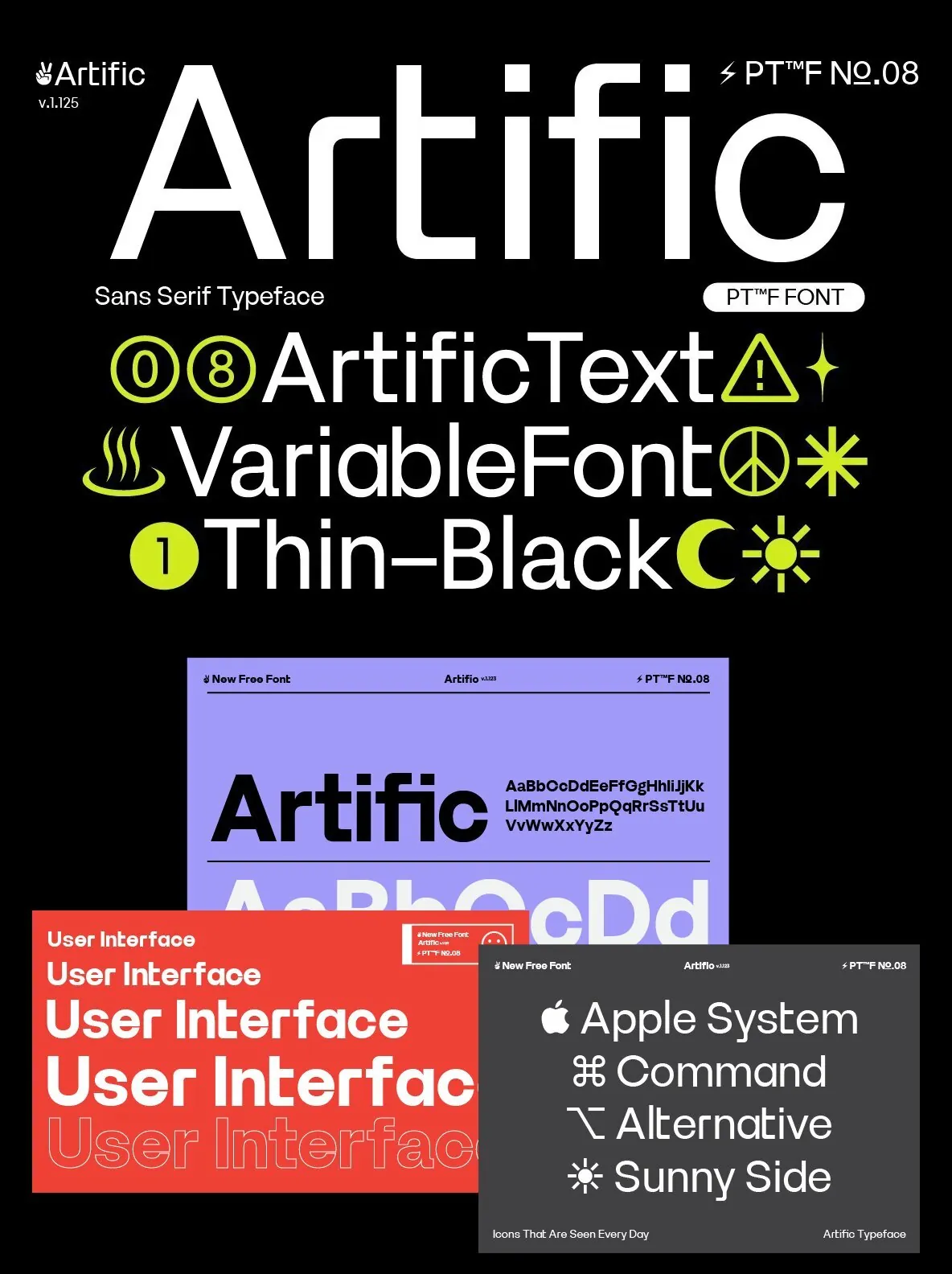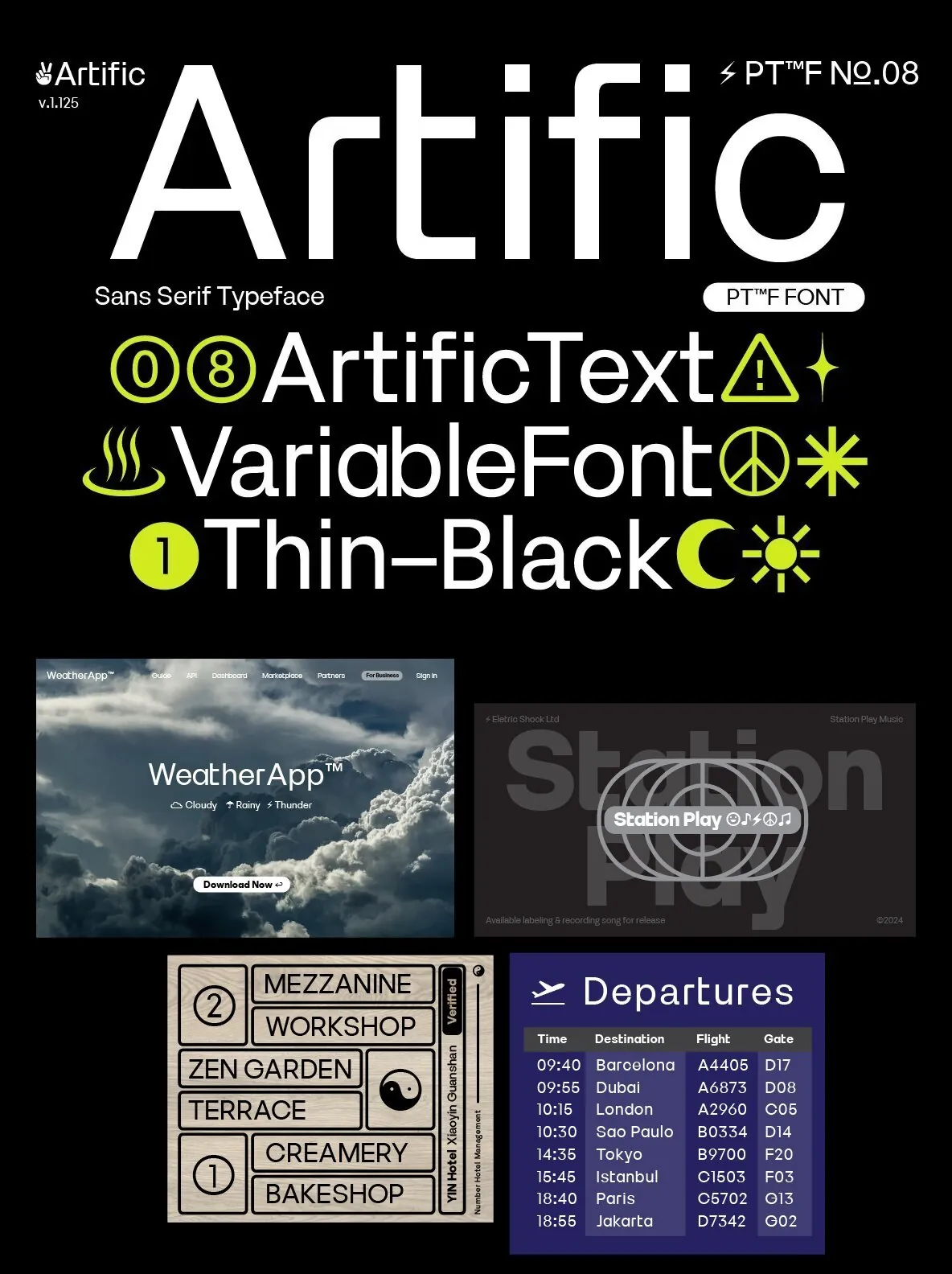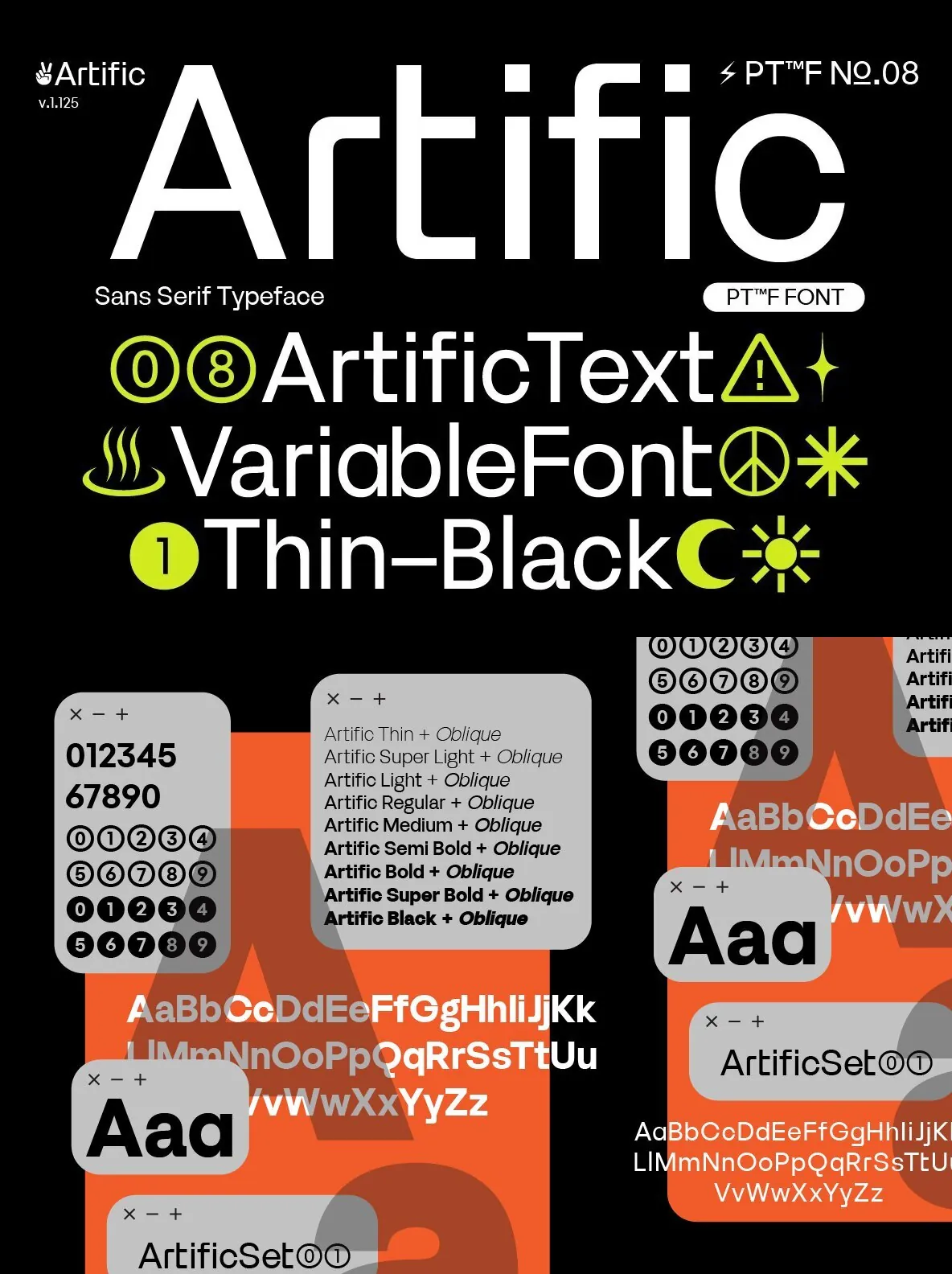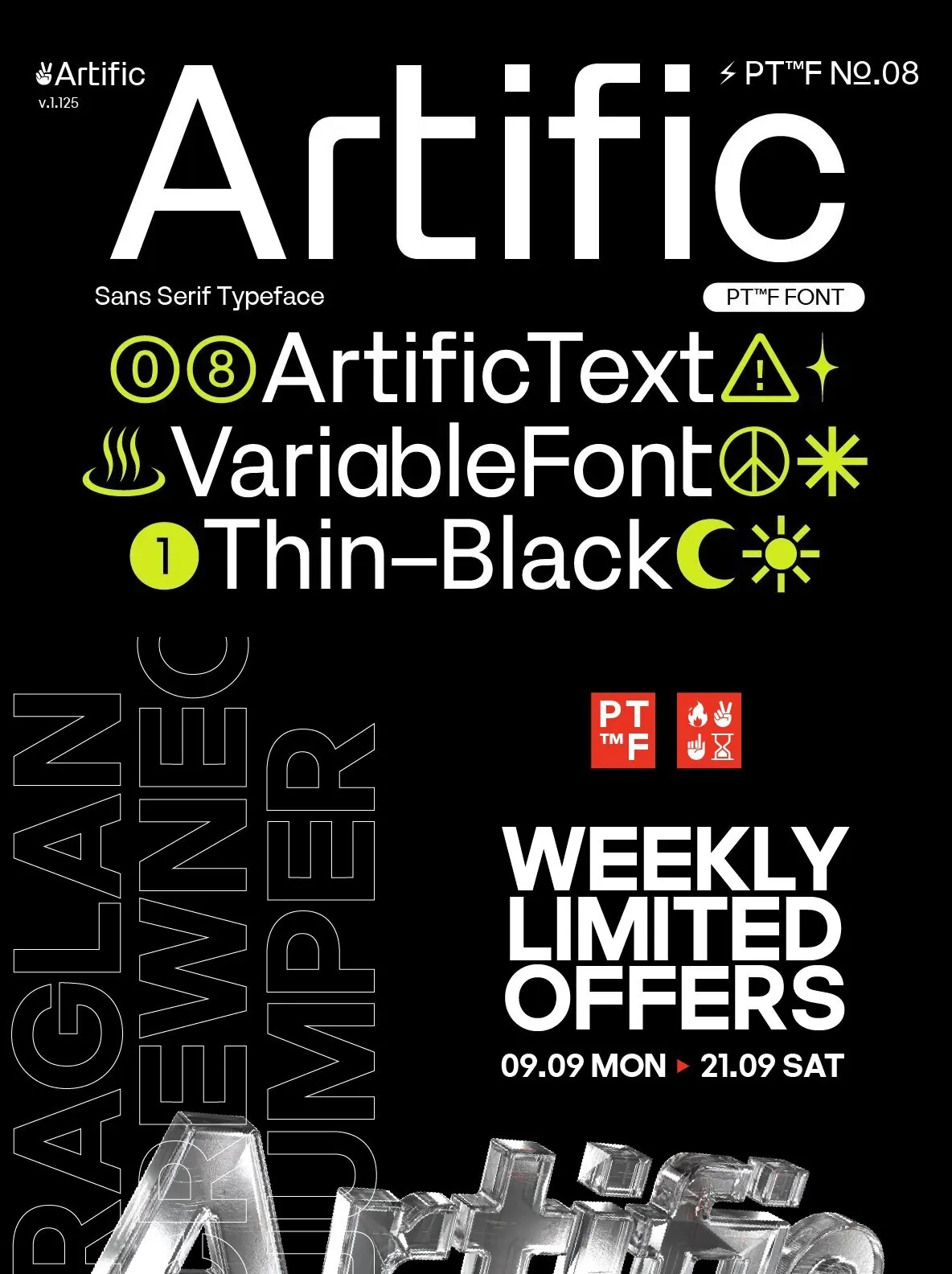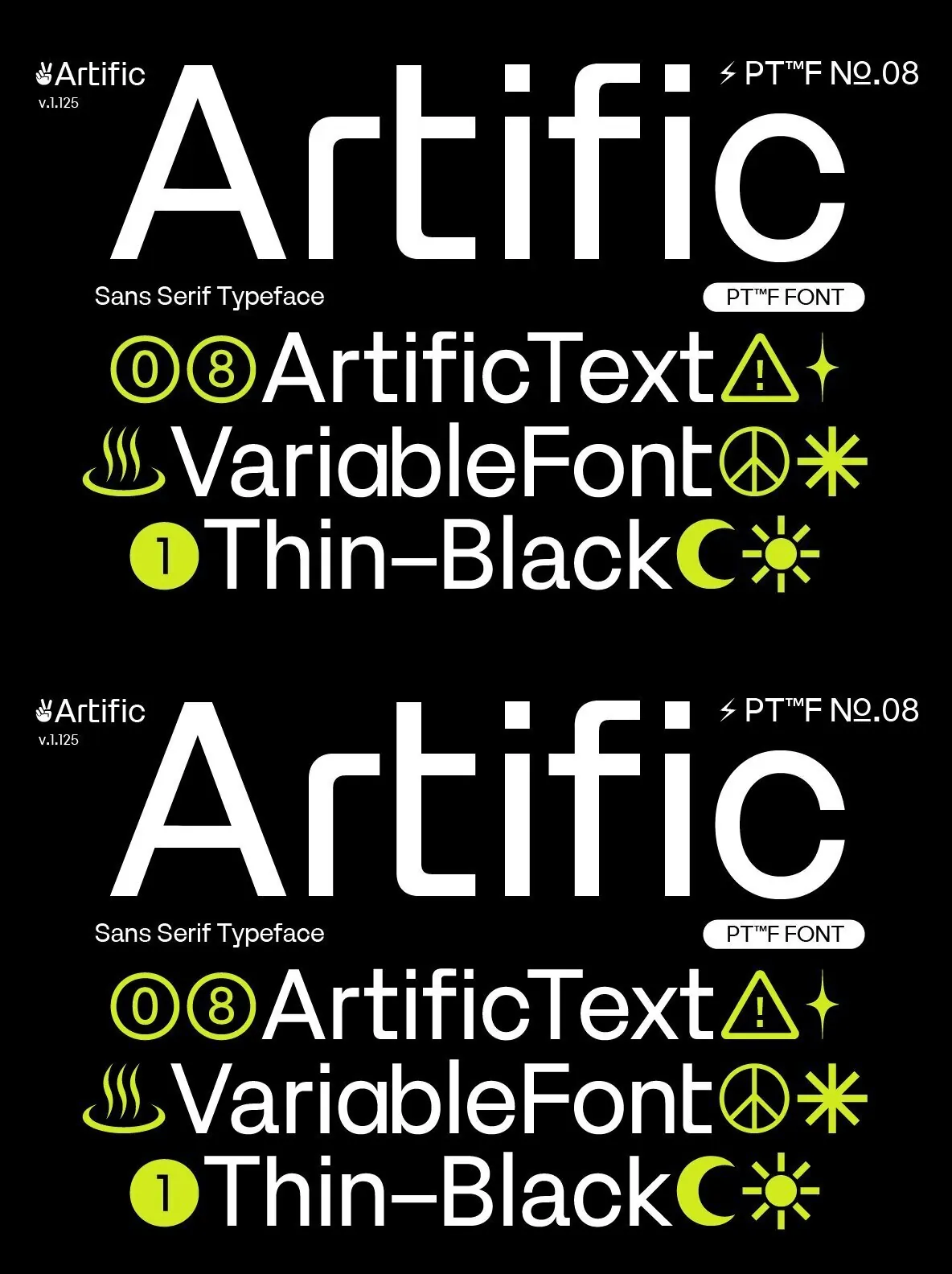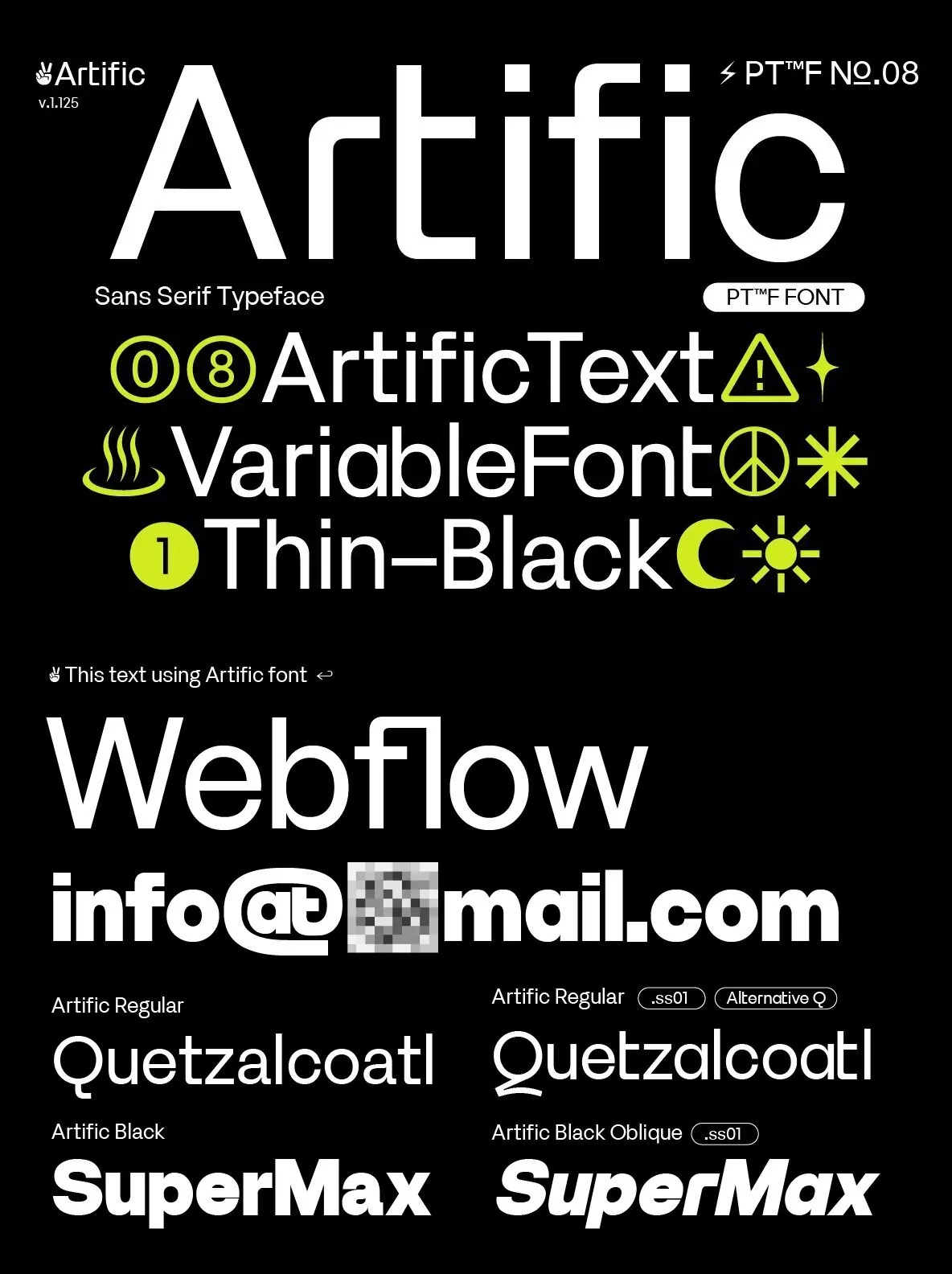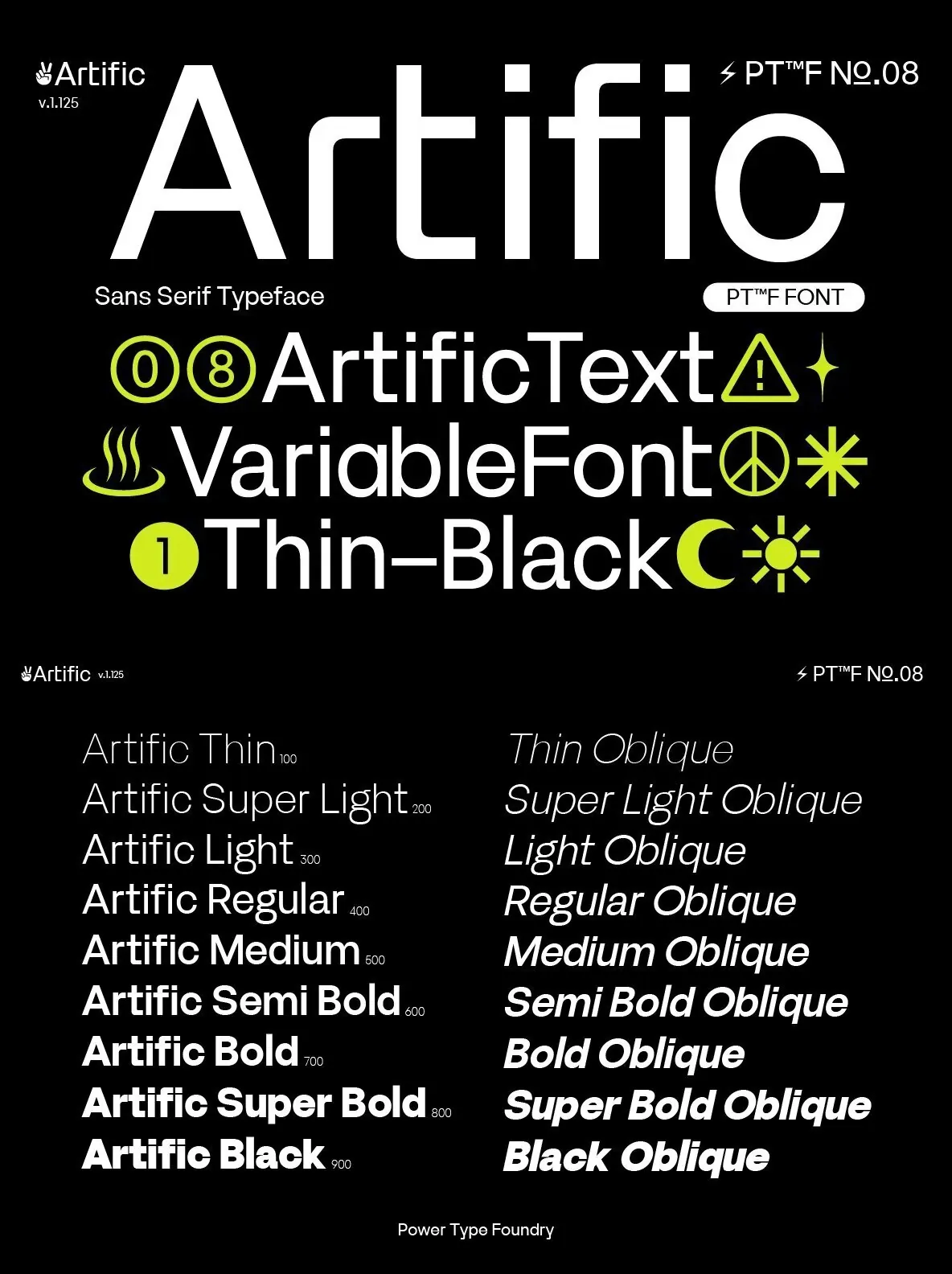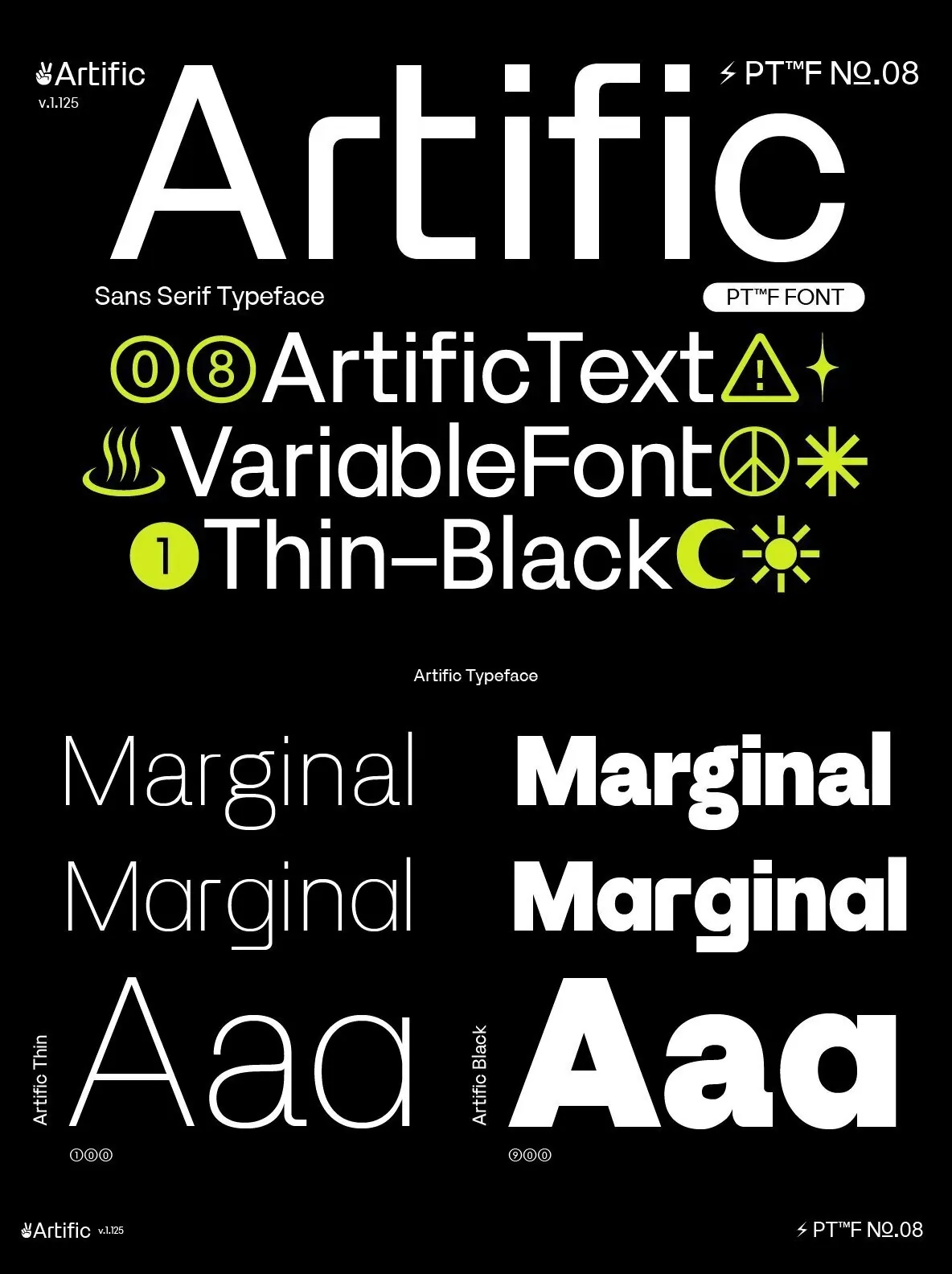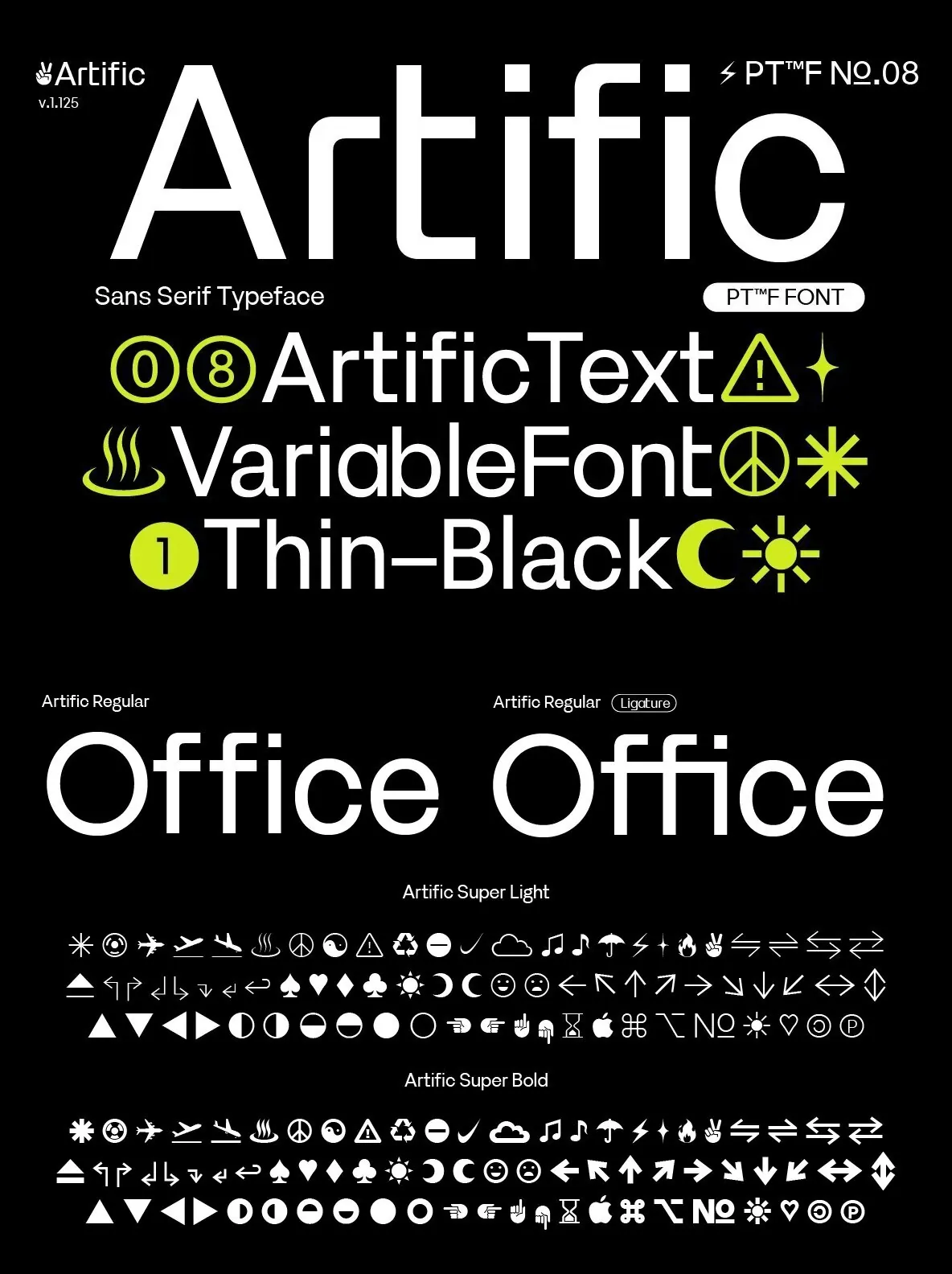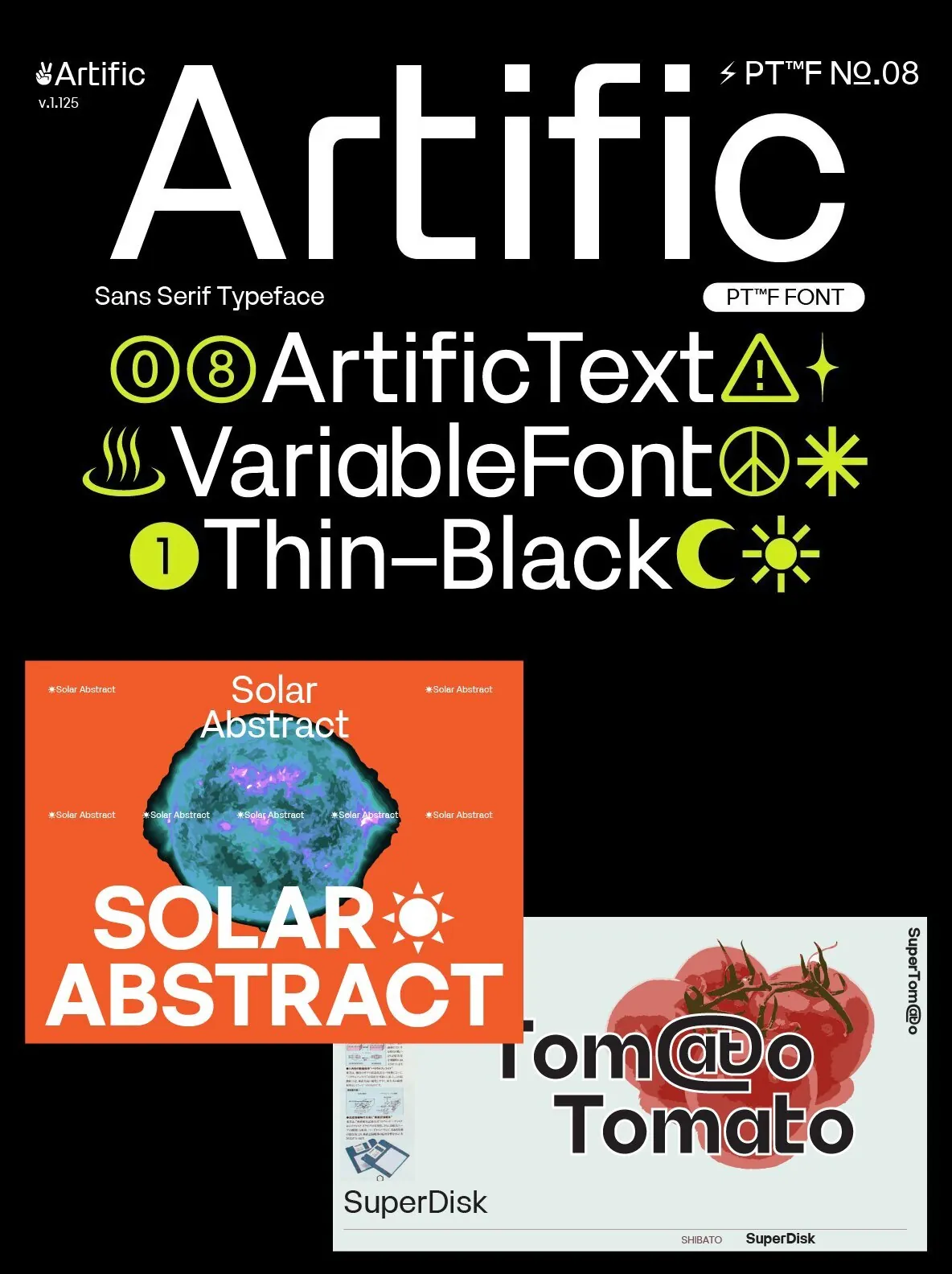
Artific: Clean UI type, modern poise
A modern sans-serif typeface designed for versatility and elegance across online and offline media. It suits contemporary interface design and delivers strong readability with a crisp, modern presence. With 9 distinct weights—Thin, Super Light, Light, Regular, Medium, Semi Bold, Bold, Super Bold, and Ultra—each paired with an oblique version, it offers a total of 18 styles for consistent typography across systems and layouts.
The family includes a comprehensive set of symbols, making it a reliable choice for modern interface and user experience design. Use it across web, mobile, and print when you need a clean sans-serif with practical coverage and straightforward performance.
Geometric shapes and structures reflect inspiration from medieval typography. This approach moves between the historical material that shaped modern typography, balancing contemporary details with classic styles. Designed by Power Type Foundry.